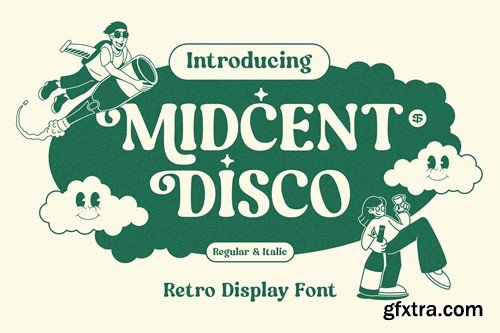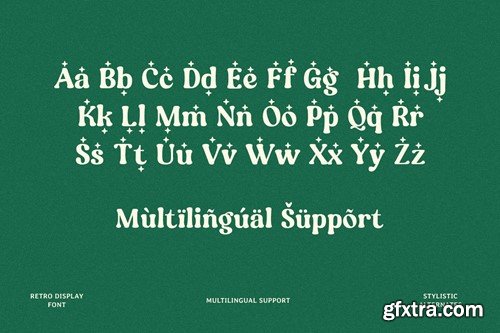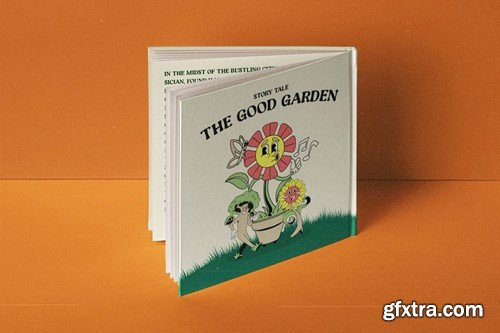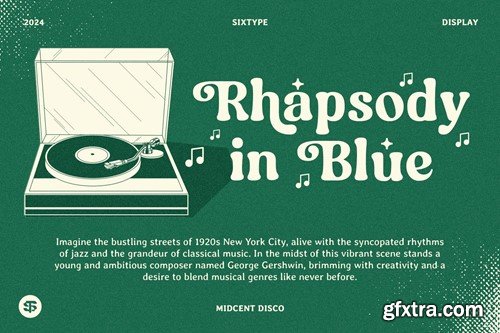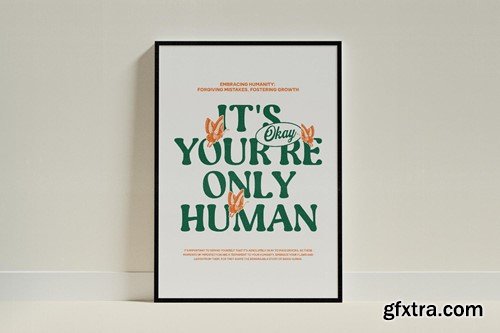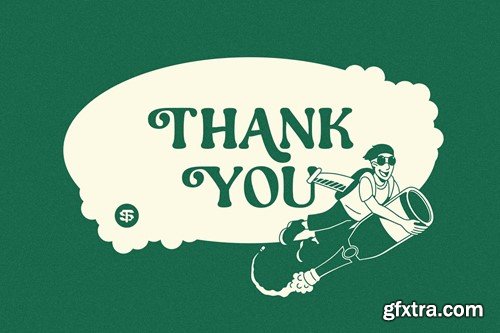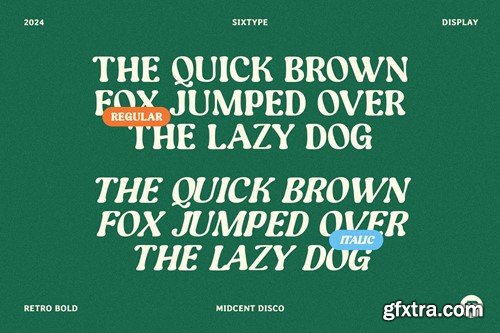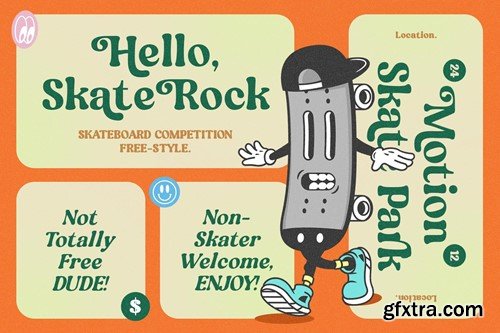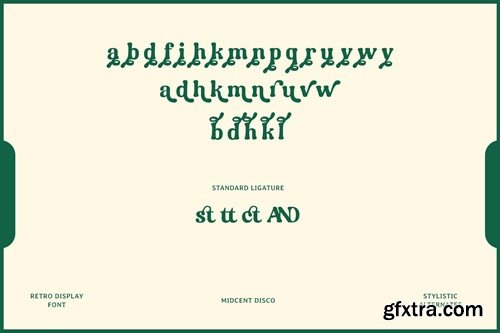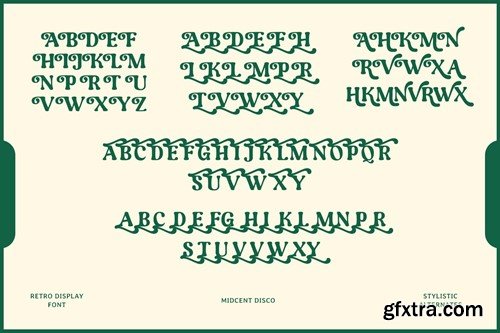
Midcent Disco - Retro Display Font
Midcent Disco embodies a stylish and daring font with a nostalgic nod to the 1960s era, tailored for crafting attention-grabbing posters, logos, website designs, and packaging with distinctive charm and flair. With its bold strokes and wide letterforms, this font evokes a tempting vintage allure, blending boldness with timeless elegance.
• Regular and Italic
• Uppercase, Lowercase, Number, Punctuation and Multilingual
• Unique letterforms